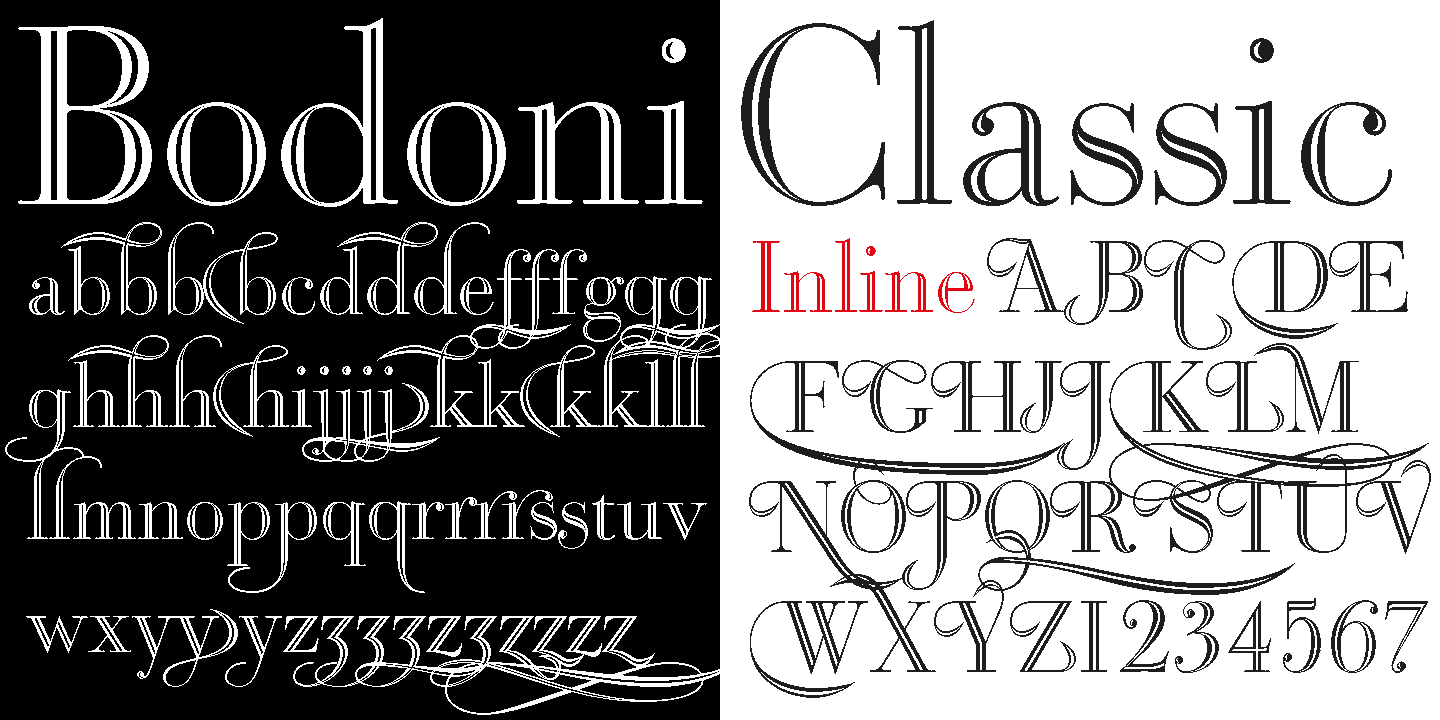
Bodoni Classic Inline Font is a stunning and elegant serif typeface that takes the timeless sophistication of the Bodoni style and adds a unique, eye-catching inline detail. This exquisite feature creates a sense of luxury, depth, and refined artistry, making it an exceptional choice for projects aiming to convey high fashion, exclusivity, and a touch of vintage glamour. Imagine it perfect for upscale fashion magazine covers, sophisticated branding for luxury goods, elegant wedding invitations, classic movie titles with a modern twist, refined editorial layouts, and high-end product packaging. This font excels in environments where visual impact, a sense of cultivated taste, and an unmistakable artistic flair are paramount. It’s particularly effective for conveying class, opulence, and a unique sense of historical depth, ensuring your message not only stands out but also resonates with an irresistible grace and timeless appeal.
What makes Bodoni Classic Inline Font truly exciting is its ability to infuse designs with both classic elegance and an intriguing visual texture. The inline detail within each character adds a layer of intricate design, making the typeface feel handcrafted and uniquely sophisticated. This font isn't just about displaying text; it's about curating an experience, injecting your designs with a sense of refined artistry and undeniable charm. It has a powerful ability to feel both incredibly luxurious and surprisingly versatile, making it an ideal tool for designers who want their work to convey sophistication, heritage, and a truly memorable visual impact. Bodoni Classic Inline Font Free Download empowers brands and creatives to project an image that is refined, opulent, and full of timeless style.
The Bodoni Classic Inline Font family typically offers a focused range of styles, primarily emphasizing its unique inline display characteristic. You'll often find it available in a strong, singular weight that best showcases its distinctive design elements. While it might not feature a wide range of traditional weights, some versions could include stylistic alternatives for certain characters or ligatures that further enhance its decorative and elegant appearance, allowing for even more customized typographic compositions. The comprehensive character set generally covers standard Latin characters, numbers, and a selection of punctuation, ensuring that Bodoni Classic Inline Font is suitable for a wide variety of creative and commercial applications where a bold and distinctive statement is desired. Its memorable and artistic presence ensures that any project featuring Bodoni Classic Inline Font will leave a strong, lasting impression.